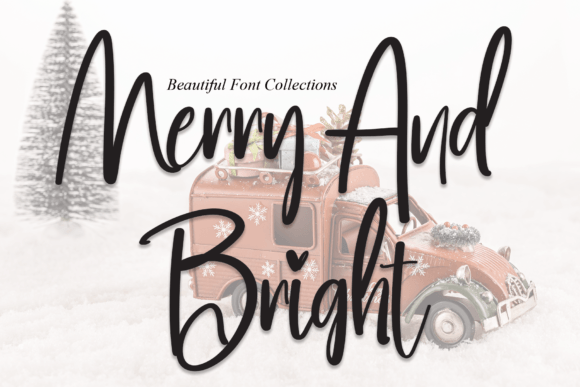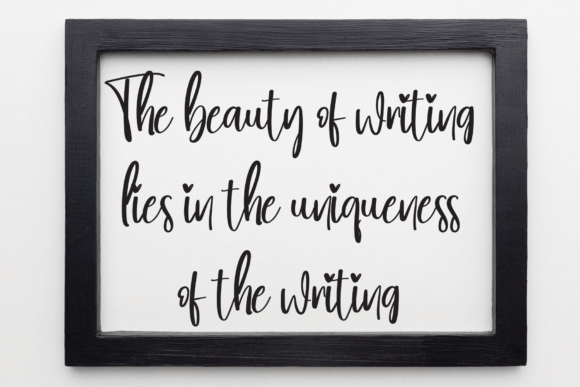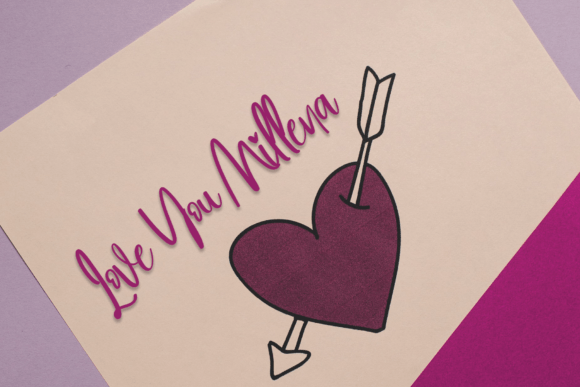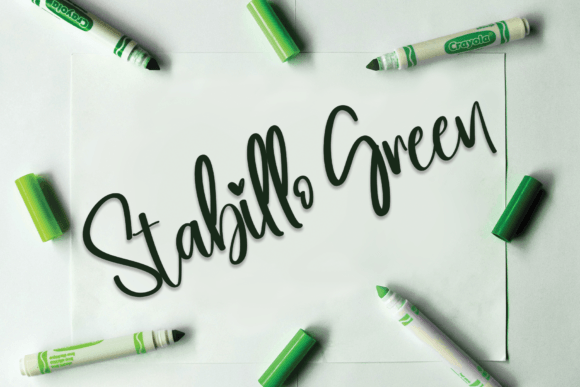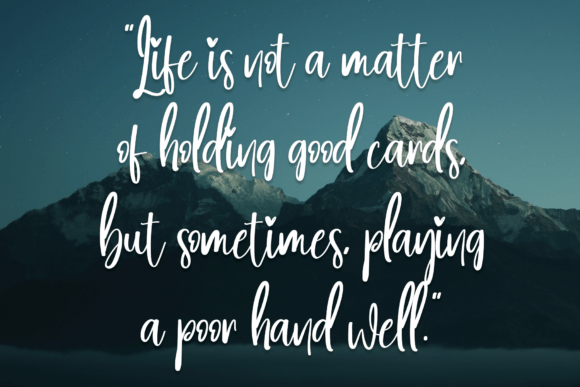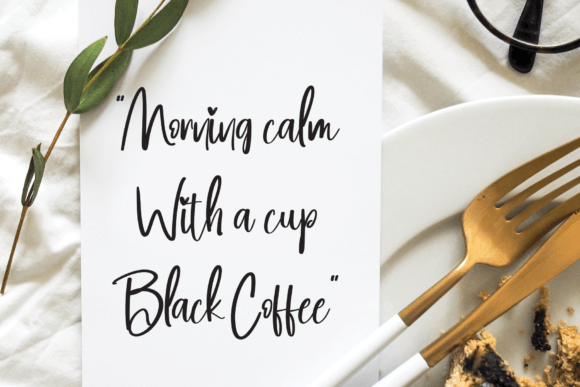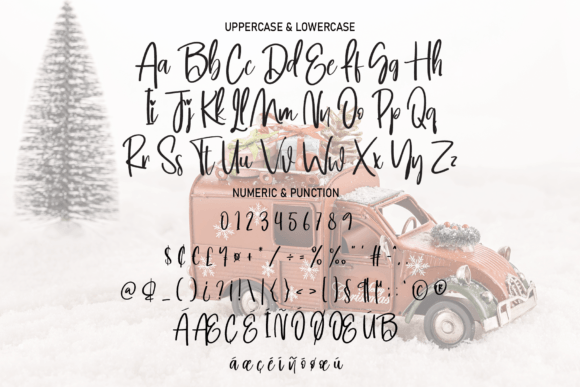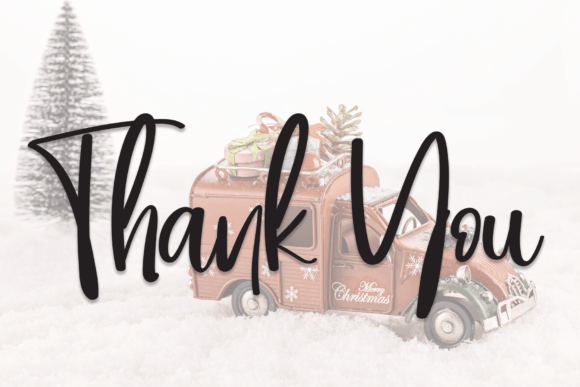
Merry and Bright Font
About Merry and Bright Font Download
The Merry and Bright Font Download is a sweet and romantic handwritten script designed to add elegance and warmth to your projects. With its delicate strokes and timeless appeal, this typeface is versatile enough for both personal and professional use. Whether you’re designing wedding stationery, logos, or digital media content, Merry and Bright enhances every creation with charm and sophistication.
A Romantic and Versatile Typeface
The Merry and Bright script font combines flowing handwritten details with a clean, modern touch. As a result, it feels approachable yet refined. Furthermore, its design is carefully balanced, making it suitable for a wide variety of creative applications.
Perfect for Invitations and Stationery
Stationery projects often need a personal touch. The Merry and Bright Font is perfect for wedding invitations, thank-you cards, greeting notes, and birthday messages. Because of its elegant handwritten style, every piece of stationery feels unique and memorable. In addition, it transforms even the simplest projects into keepsakes.
Branding and Logo Design with Merry and Bright Font
Typography defines how people perceive a brand. The Merry and Bright handwritten font is an excellent choice for boutique logos, product packaging, and luxury branding. Its romantic yet professional look makes it especially effective for creative industries, lifestyle brands, and fashion-related projects.
Posters, Editorials, and Display Work
The Merry and Bright Font Download is equally strong in posters, magazine layouts, book covers, and inspirational quotes. Its handwritten rhythm maintains readability while adding artistic flair. Consequently, it is a dependable option for print and digital displays alike.
In the digital age, fonts must shine across platforms. The Merry and Bright typeface integrates smoothly into Instagram posts, Pinterest boards, YouTube thumbnails, and blogs. Because of its stylish handwritten character, it ensures your content stands out online.
Why Designers Choose Merry and Bright Typeface
Designers prefer fonts that balance elegance with usability. The Merry and Bright handwritten script achieves this by offering timeless beauty without sacrificing clarity. Moreover, its versatile nature ensures it remains relevant for years to come.
Add Romantic Beauty to Your Designs Today
If you want a handwritten script that feels elegant, warm, and versatile, the Merry and Bright Font Download is the perfect choice. From wedding invitations and greeting cards to branding and digital media, it enhances every project with charm. Finally, download Merry and Bright today and bring graceful handwritten beauty to your creative work.